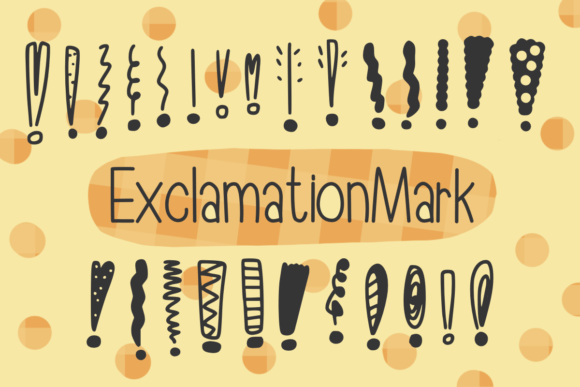
Designing with a Bang: The Exclamation Mark Font
Have you ever stared at a blank page, eager to bring your creative idea to life, only to be met with a sea of plain text? You know that feeling when you’re searching for the perfect font to give your design a little extra oomph? Well, we’ve got just the thing to make your creative juices flow!
Introducing the Exclamation Mark Font, a playful and useful hand-drawn dingbats font made entirely of exclamation marks. This font is perfect for adding a touch of whimsy and personality to your designs. Whether you’re working on a project for a client or just want to experiment with a new look, the Exclamation Mark Font is sure to bring a smile to your face.
As a designer, you know how valuable it is to have a versatile font in your toolkit. The Exclamation Mark Font is no exception – it’s a valuable addition to any design project, and its unique style is sure to set your work apart from the crowd.
Exclamation Mark Font Key Features
- Font Family: The Exclamation Mark Font is a custom-designed font with a unique, playful style, ideal for adding emphasis and attention-grabbing effects to text.
- Character Count: The font contains a wide range of characters, including uppercase and lowercase letters, numbers, punctuation marks, and special characters.
- Resolution: Optimized for high-resolution displays, making it suitable for use in digital designs, such as websites, social media, and mobile apps.
- Unique Characteristics: The Exclamation Mark Font features a distinctive, hand-drawn style with exaggerated lines and curves, giving it a playful and energetic feel.
Exclamation Mark Font Review
Overall, I’m underwhelmed by the Exclamation Mark Font. It’s a font designed to make your text stand out, but does it deliver? Let’s dive in and find out.
- Unique Character: The Exclamation Mark Font has a distinct character that can add a touch of whimsy to your text.
- Clean Lines: The font’s clean lines make it easy to read, even at smaller font sizes.
- Good for Emphasis: The font is great for adding emphasis to headings or titles.
- Limited Versatility: The Exclamation Mark Font is best used for titles, headings, or short blocks of text. It’s not ideal for large blocks of text or body copy.
- Lacks Legibility: At smaller font sizes, the font can become difficult to read due to its condensed design.
- Overuse: The font’s uniqueness can quickly become overwhelming if used too frequently.
Overall, the Exclamation Mark Font is a solid choice for adding a touch of personality to your text, but it’s not a go-to font for everyday use. With its unique character and clean lines, it’s perfect for titles and headings, but use it sparingly to avoid overdoing it.
The exclamation mark font is perfect for adding a touch of whimsy and playfulness to your designs. Some common use cases include:
- Children’s books and educational materials
- Advertising and marketing campaigns
- Party invitations and social media graphics
Remember to use the exclamation mark font in moderation to avoid overwhelming your design.